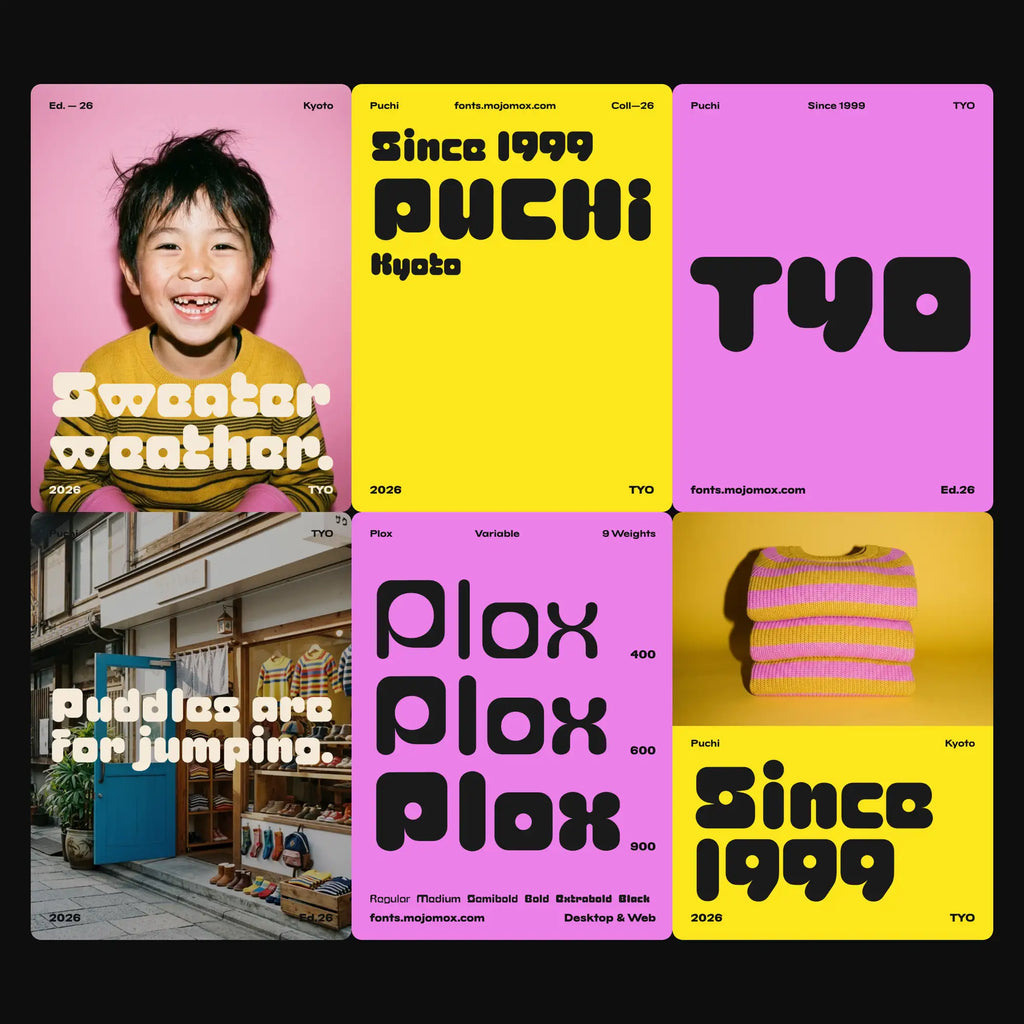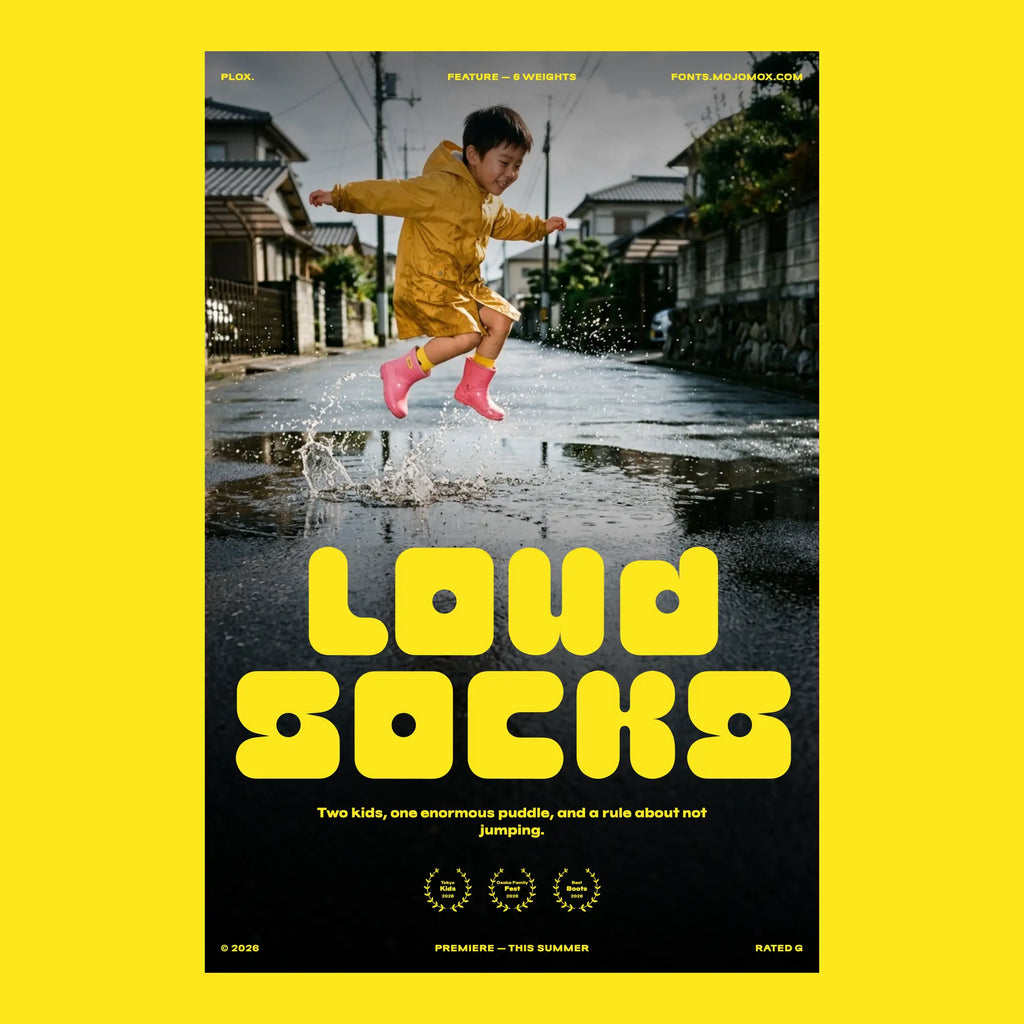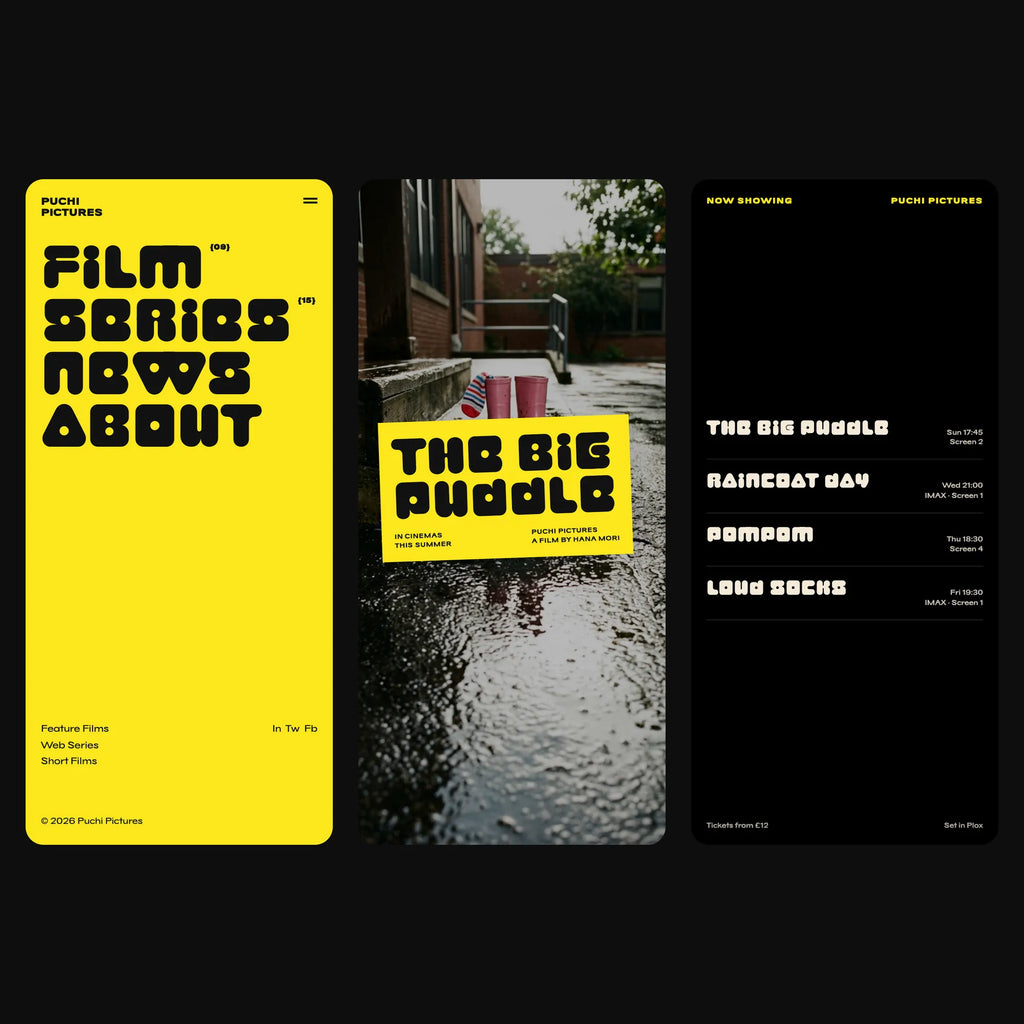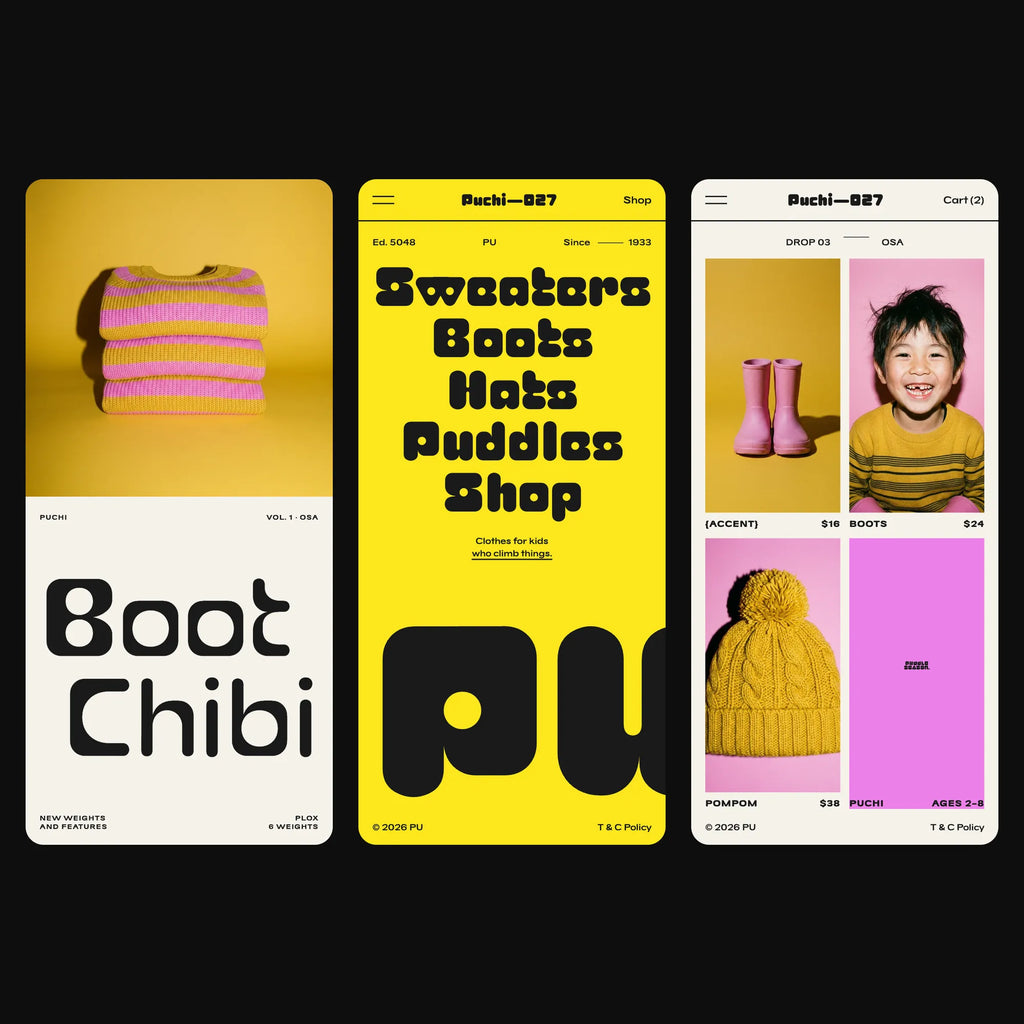
Plox bubble block display font, one of the fonts in the Display Statement Pack
Plox—Bold, Chunky Rounded Block Font, Playful for Logos
Plox is a bold, bubble block font with a playful, toy box feel. Built from rounded chunky shapes with a modular structure, it’s great for logos, games, and anything that needs a cool and unique look. Best for kids brands, toy packaging, fun apps, and display use like logos, titles, and headlines. Available as a full family with variable font and as single font weights.
Plox in detail
Works best for
Kids brands, toy packaging, playful apps, and logos, titles and headlines; display sizes.
Pairs with
Acme or bitec sans for the text alongside.
Design notes
• Built from a small kit of rounded rectangular modules, one stroke thickness, so every letter is a block with the corners rounded off.
• Several capitals are their own shapes: A is a rounded triangle with a hole, D looks like a lowercase d, E is a rounded square with a notch, J is a single slash, S is a rounded square with a bar, V and W are rounded triangles pointing down, Z is a 2-like block.
• The lowercase largely repeats the capitals at x-height, with a unicase feel; the e is a rounded square with a bar, the letter that decides readability at small sizes.
• Figures: the 4 is an open ч-shape, the 0 a rounded square; the & is a ω-like loop.
• Nine stylistic sets hold the conventional forms of A, E, Q, S, o and the figures 1 and 8, so the odd letters are a choice, not a limit.
• A toy look, modular and made of shapes: for logos in furniture, kids and anything built from modules.
Family
Variable font, weight axis wght 100-950, with 9 named weights: Thin, ExtraLight, Light, Regular, Medium, SemiBold, Bold, ExtraBold, Black. 782 glyphs, 505 characters, 9 stylistic sets.
Languages
Latin, Western European accents, Central European.
Figures
Proportional, tabular, slashed zero.
OpenType features
Case-sensitive punctuation, discretionary ligatures, fractions, standard ligatures, ordinals, proportional figures, tabular figures, slashed zero.
Ligatures
On by default: ff, fi, fl, ffl. Discretionary, switched on by the designer: TT, oo, OO, OC, OG, RR.